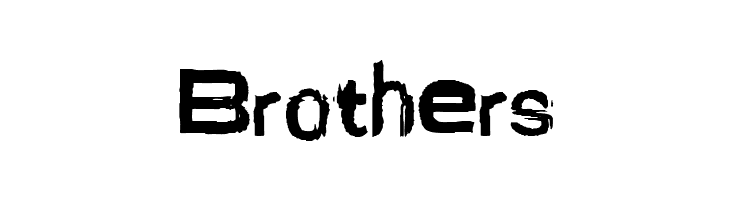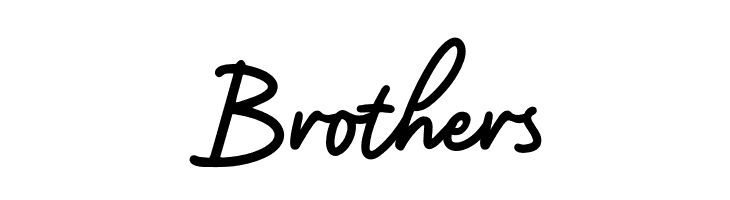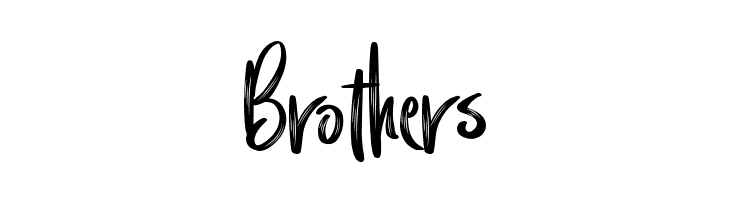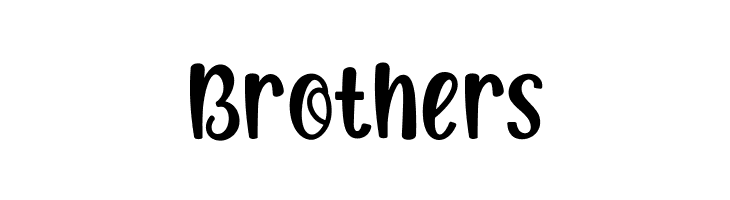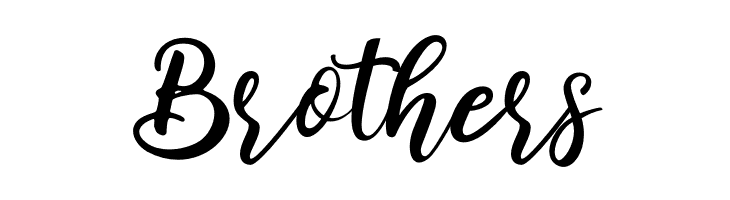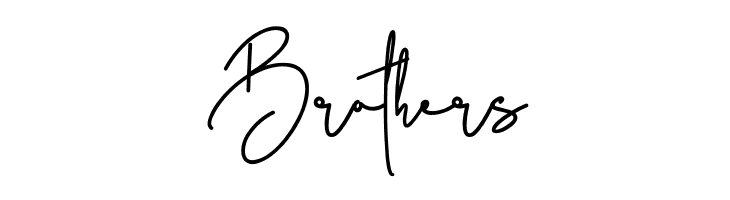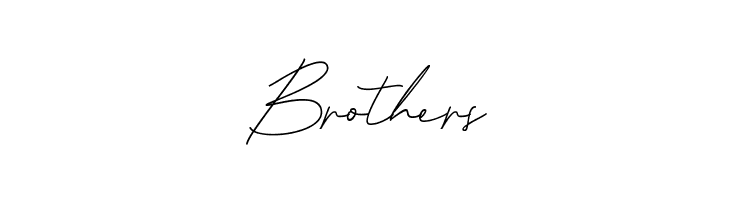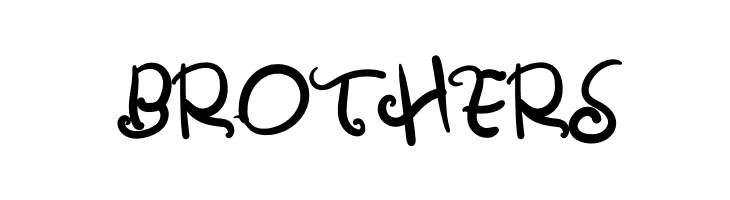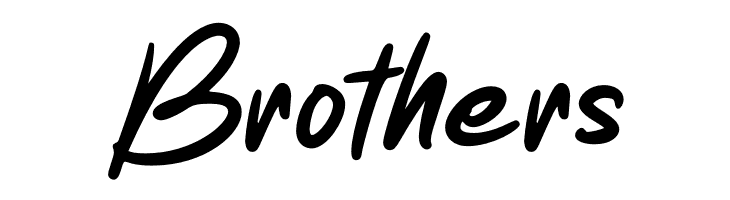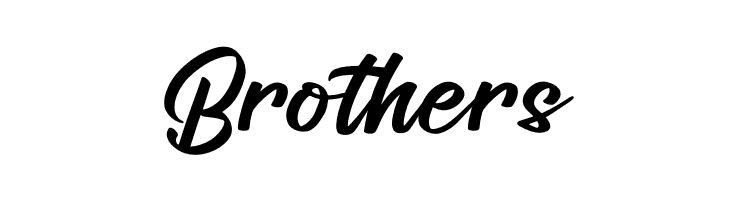
• Amsterdam Signature
A modern, elegant handwritten font with fluid, cursive strokes.
• Amsterdam Street
A playful, casual handwritten font with fluid strokes and a lively feel.
• Amsterdam Traveling
A bold, flowing script font with elegant, connected strokes.
• Amsterdam Traveling Italic
A bold, cursive italic font with a flowing, handwritten style.
• Amsterdam-Regular
A lively handwritten font with fluid strokes and playful curves.
• Amsterday
A casual, handwritten font with playful, flowing strokes.
• Amsterdrum_Grotesk
A bold, distressed font with a hand-drawn, chaotic style.
• amsterdune
An elegant, flowing script font with ornate uppercase and smooth lowercase letters.
• Amsterland
A lively handwritten font with fluid, dynamic strokes and elegant connections.
• Amsteroid Space
A playful, bold, and rounded font with a hand-drawn aesthetic.
• AMSTHA
A bold, gothic-style blackletter font with intricate detailing and sharp, angular lines.
• AMSTHA ITALIC Italic
An ornate, Gothic-inspired italic font with sharp, angular strokes.
• Amstirdam
A flowing, cursive script font with an elegant, handwritten style.
• Amstirdam
A fluid, elegant handwritten font with thin, delicate strokes.
• Amstrike